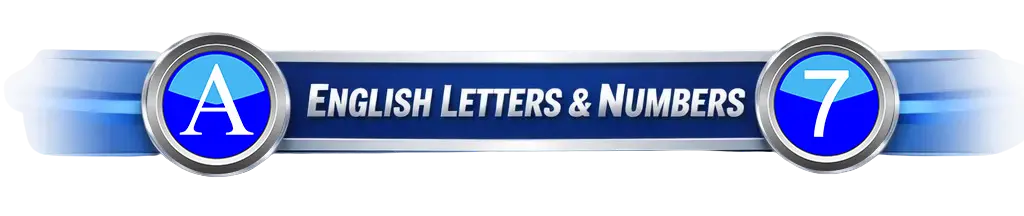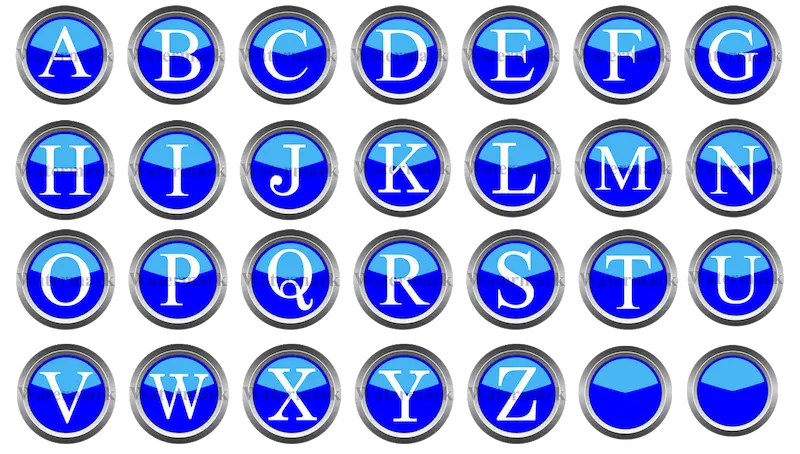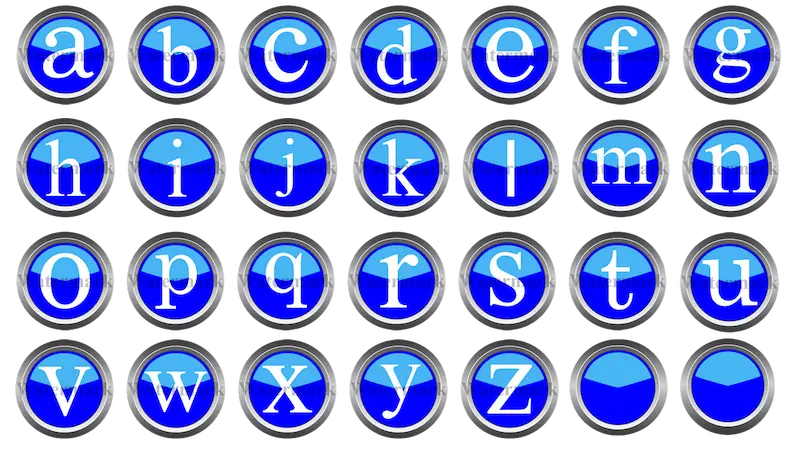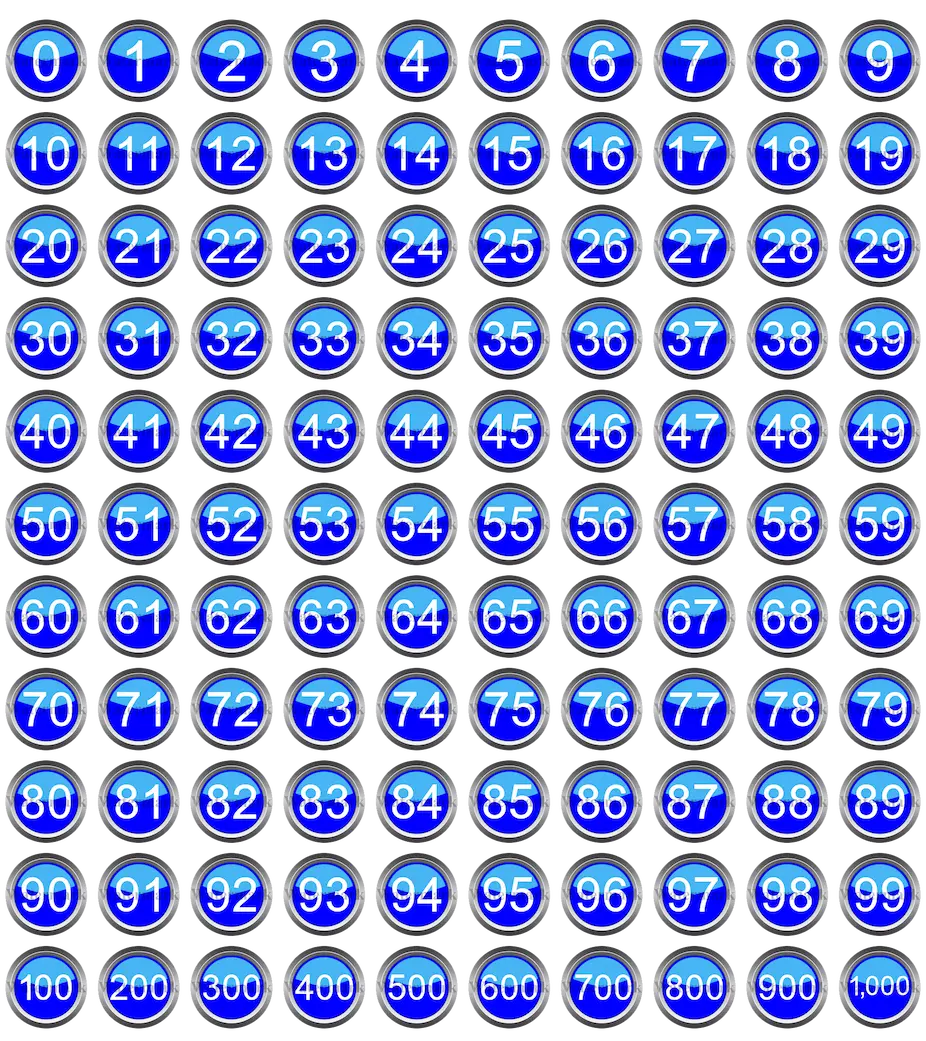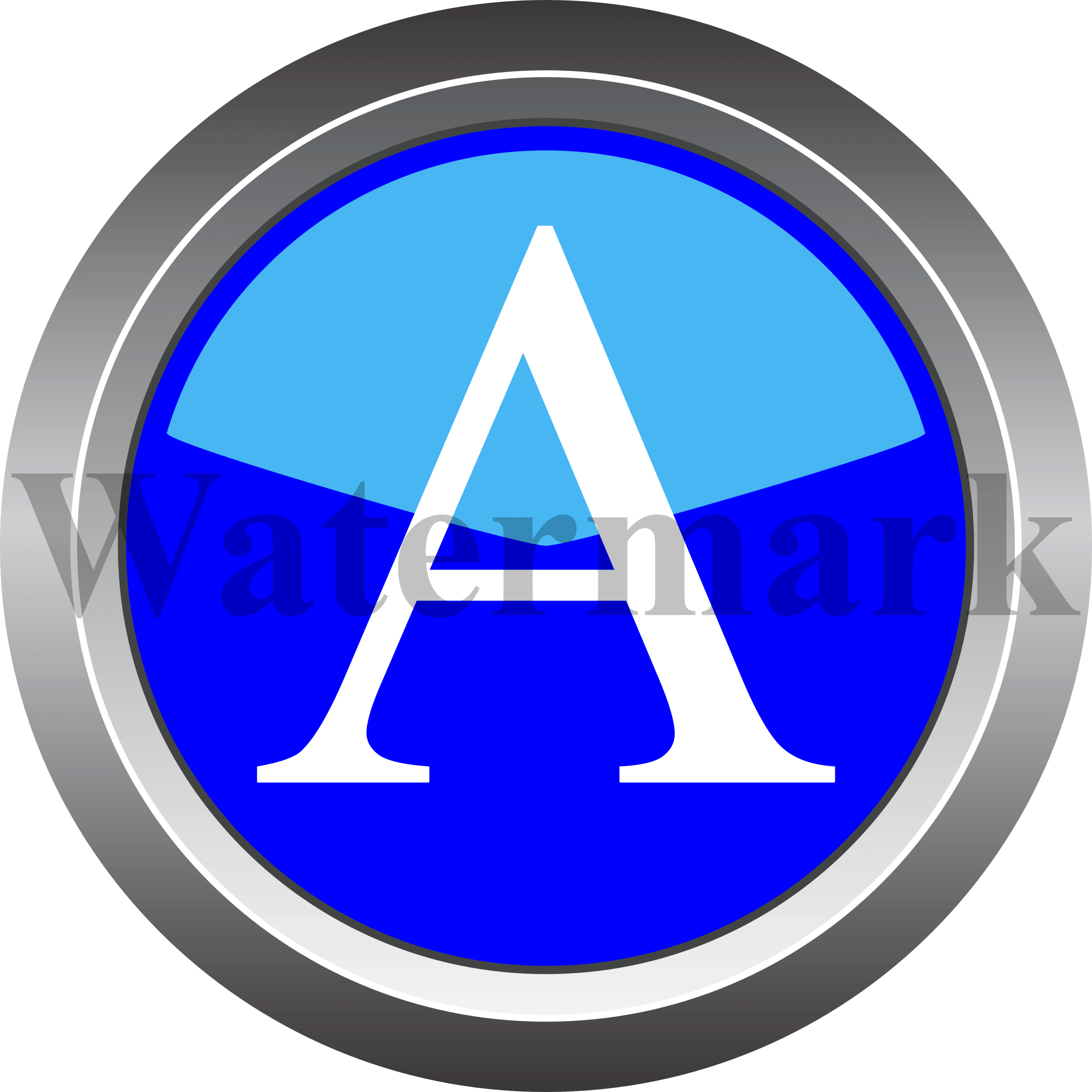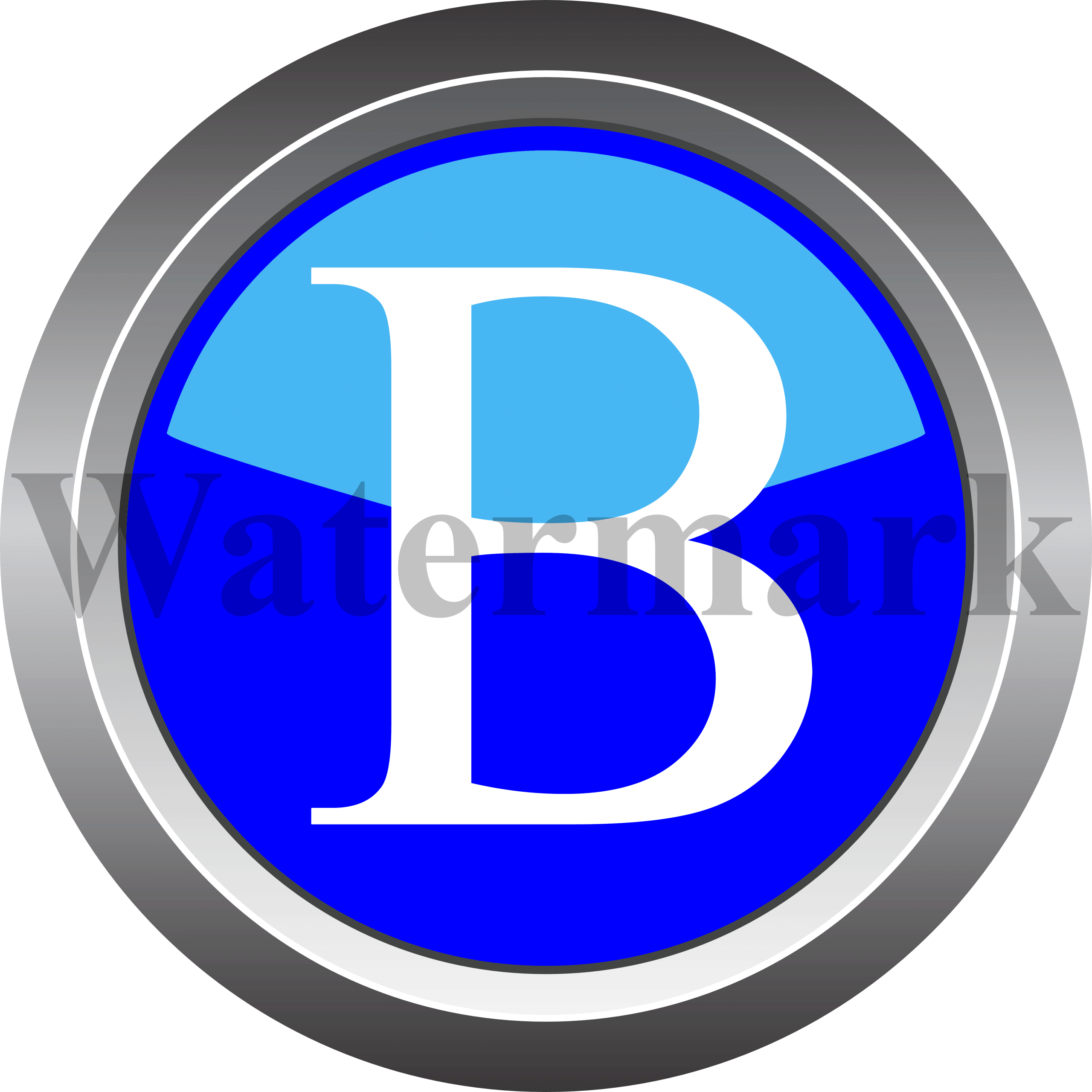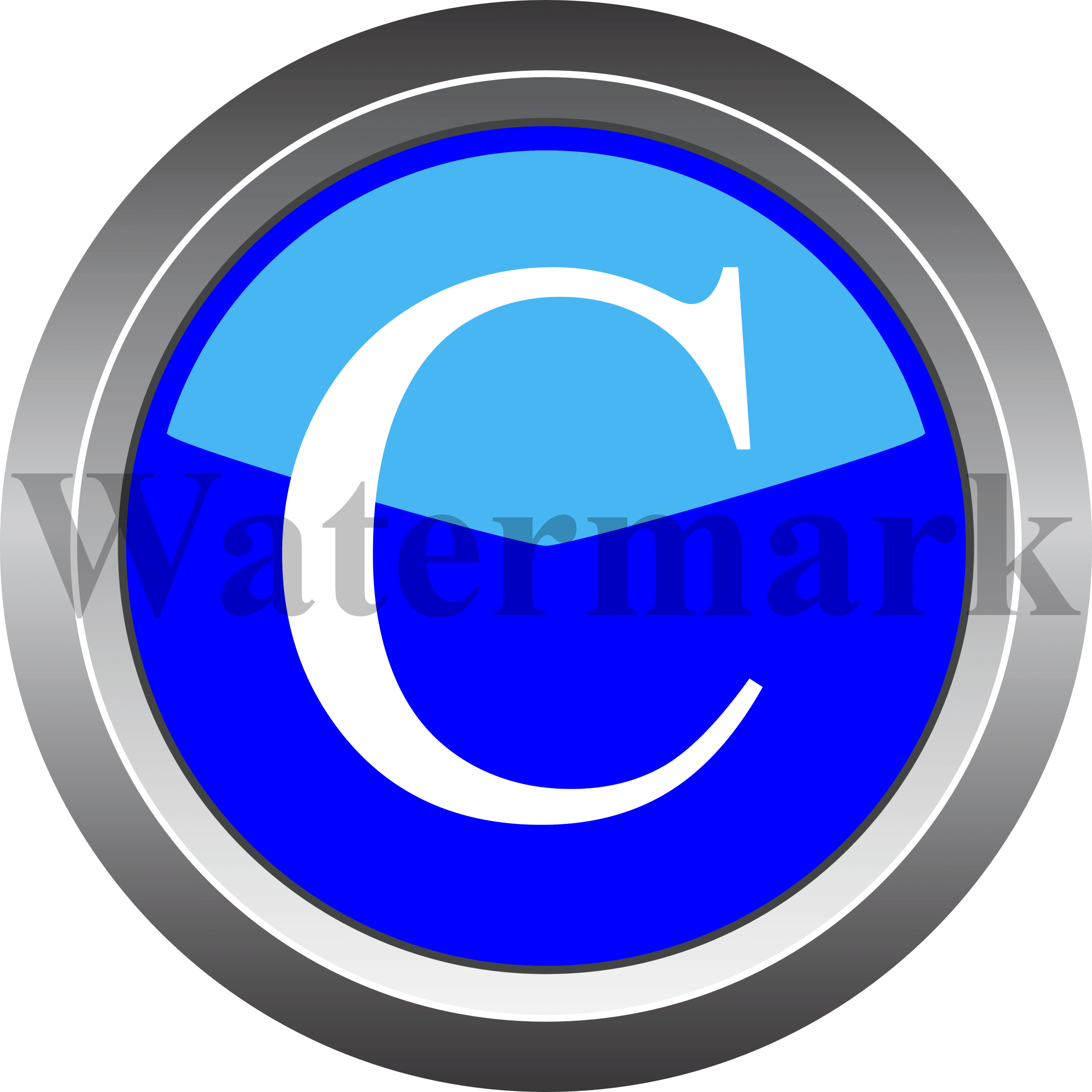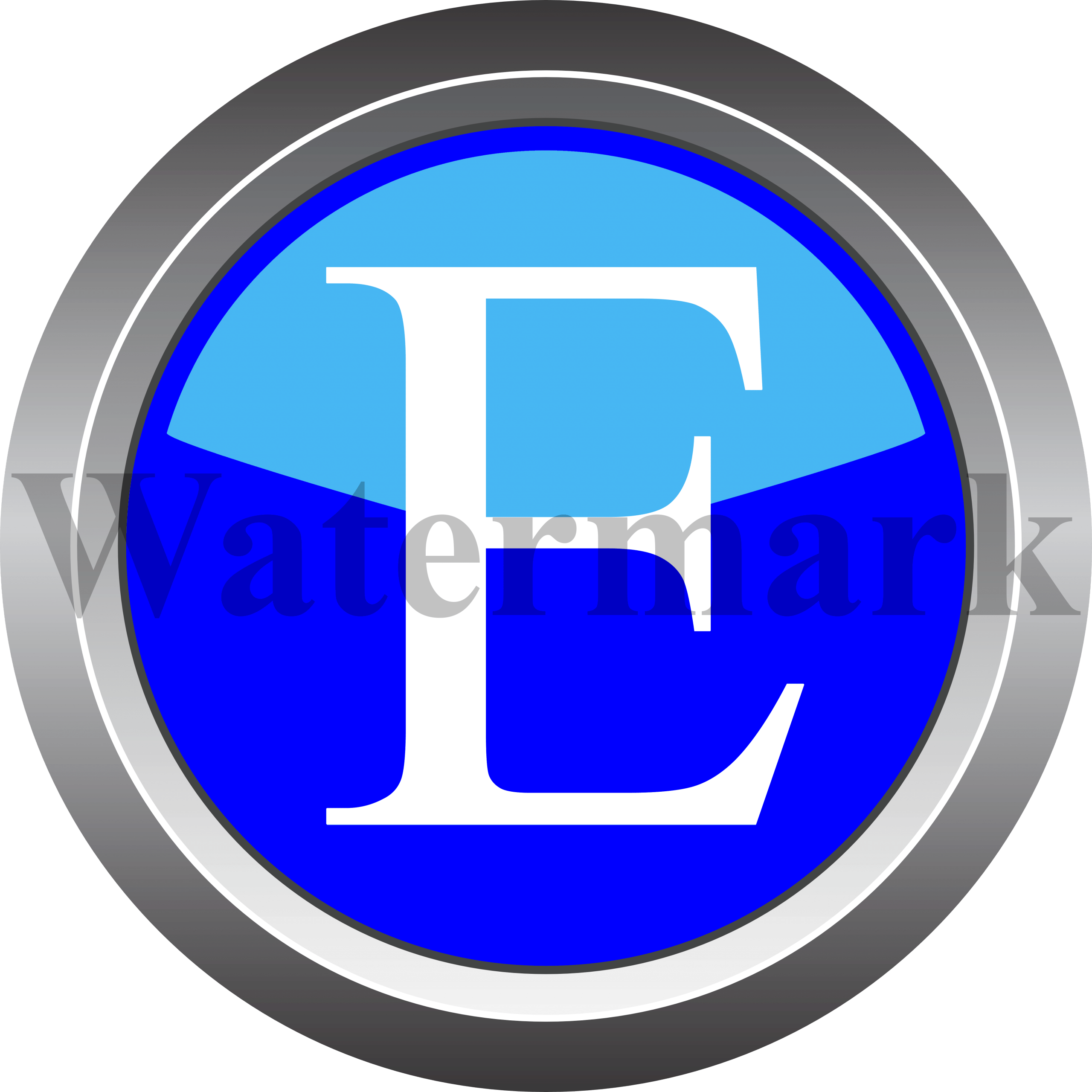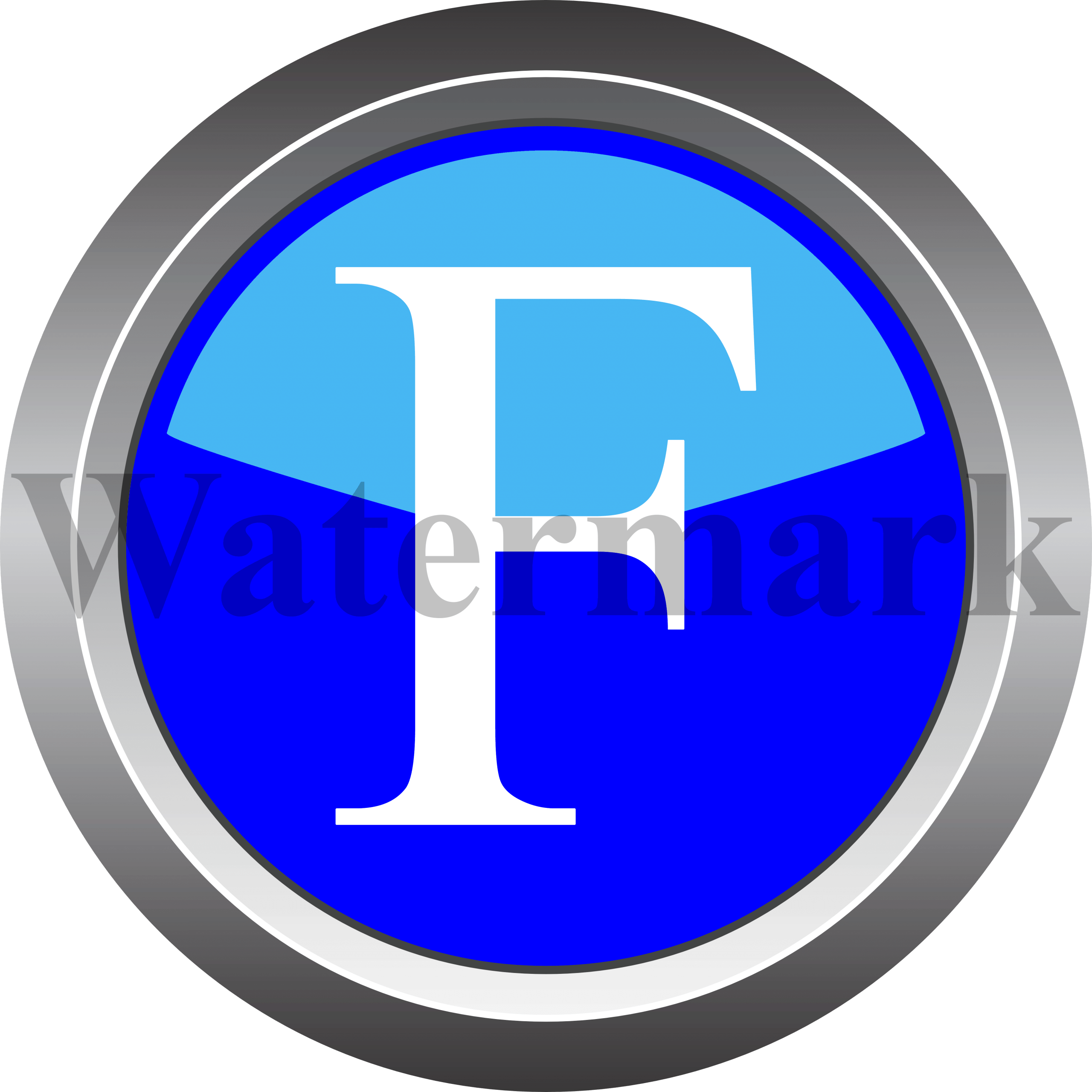
First of all, this is a complete and professionally designed alphabet and numbers PNG pack. In total, you will receive 356 high-quality image assets, carefully crafted for both digital and print use. Each element is designed with consistency and clarity in mind, ensuring professional results in every project.
This bundle includes all 26 English capital letters PNG, designed with a clean, modern look. Because the files are high resolution, they remain sharp on websites, banners, and printed materials.
In addition, you will receive 26 English lowercase letters PNG, perfectly matched to the capital letters. As a result, you can maintain a consistent visual style across all of your designs.
Furthermore, the bundle includes English numbers PNG from 0 to 1000, which makes it ideal for pricing graphics, labels, charts, and educational content.
Most importantly, this English alphabet PNG bundle is created for people who value quality and efficiency. Instead of spending hours searching for inconsistent free resources, you get everything you need in one organized package. Consequently, your workflow becomes faster and more professional.
All alphabet letters and numbers are created in high resolution, ensuring sharp edges and clean visuals. As a result, your designs look polished and professional in every context.
Because the bundle includes SVG files, you can resize letters and numbers infinitely without losing quality. Therefore, this pack is perfect for both small digital icons and large print designs.
Because this alphabet and numbers PNG bundle is extremely versatile, it works perfectly across multiple platforms and formats.
You can use these English letters and numbers PNG files on websites, landing pages, and online stores to create eye-catching headings, icons, and visual elements.
Moreover, the clean and modern design makes this bundle ideal for logos, brand identities, and marketing graphics. As a result, your brand visuals remain consistent and professional.
In addition, the high resolution makes these files suitable for printing posters, flyers, banners, and educational materials without quality loss.
Because of its flexibility, this alphabet letters and numbers PNG bundle is suitable for a wide range of users.
Graphic designers, web designers, and digital creators can use this bundle to save time and improve design consistency across projects.
Businesses and marketers can use these assets for ads, promotions, pricing graphics, and branded content, ensuring a professional look every time.
Educators and content creators can also use these English letters and numbers PNG files for learning materials, worksheets, and educational designs.